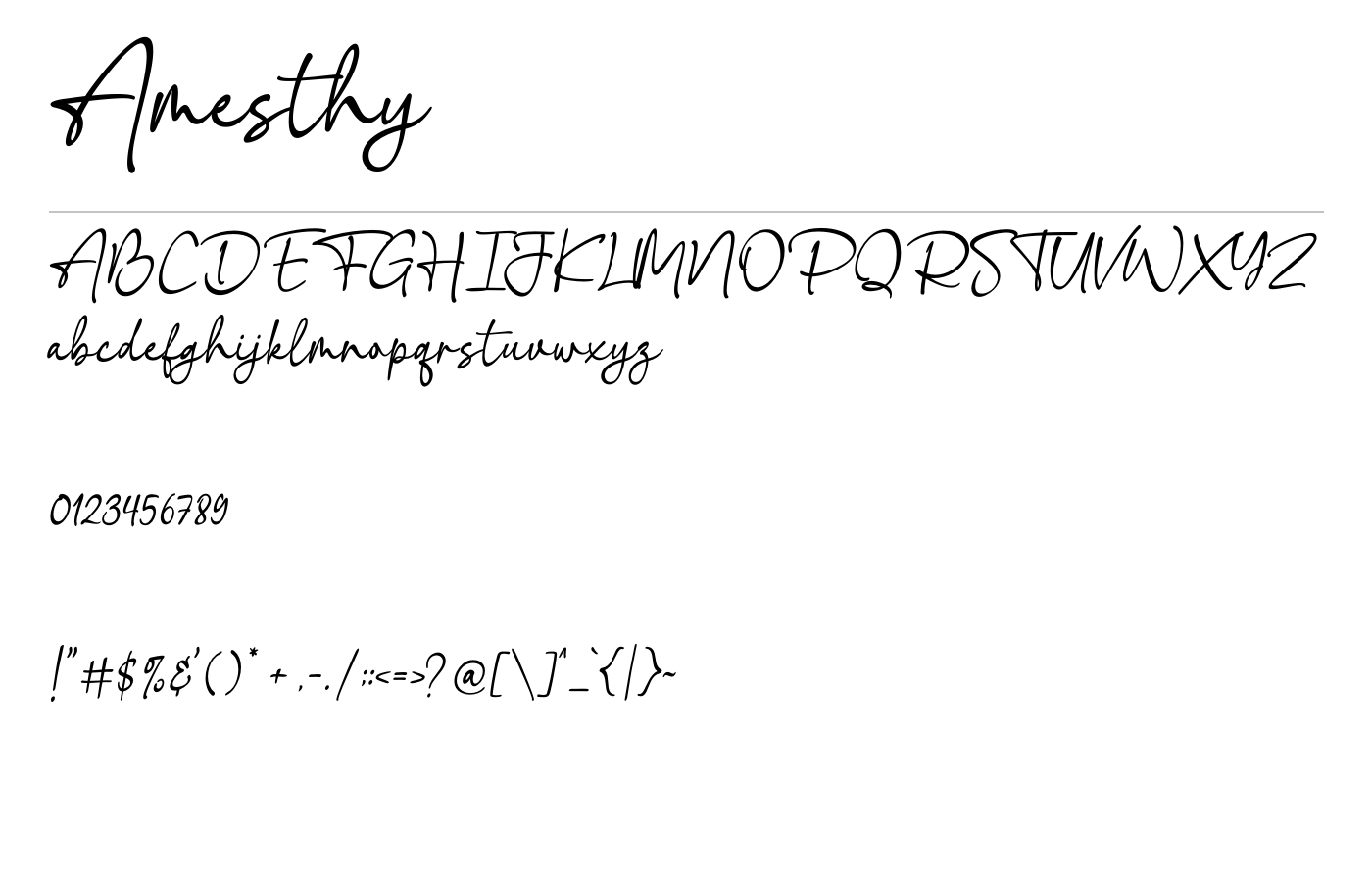
Amesthy is an elegant, handwritten script font with smooth, flowing strokes that give it a personal and artistic feel. Its light weight and airy spacing create a delicate, approachable style ideal for creative branding, invitations, and feminine or casual designs. This font works well in contexts that need a friendly yet refined touch, enhancing projects that seek warmth and charm.
Amesthy Font
About Amesthy Font
| Font family | Amesthy Font |
| Designer | Muhamad Yusron Billah |